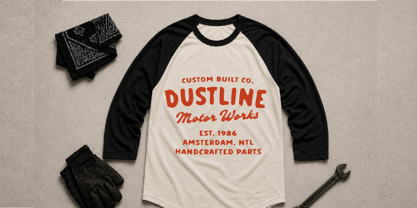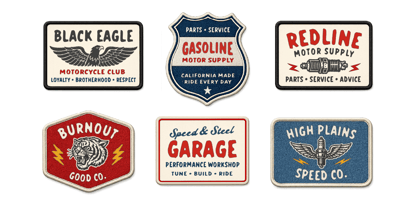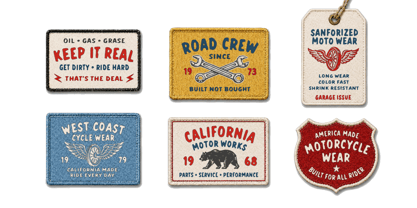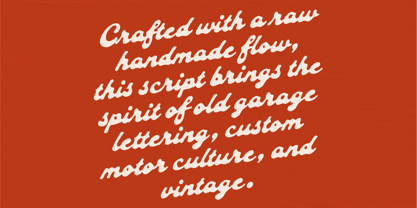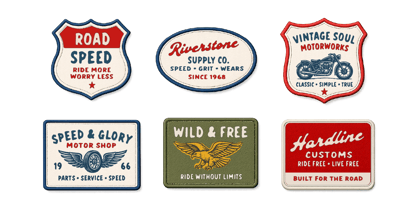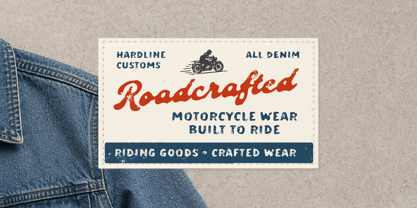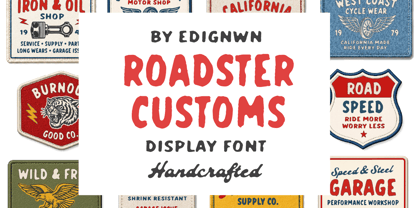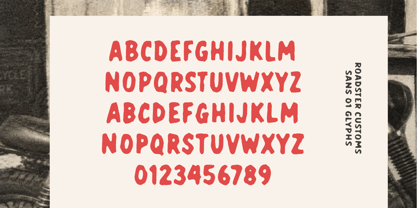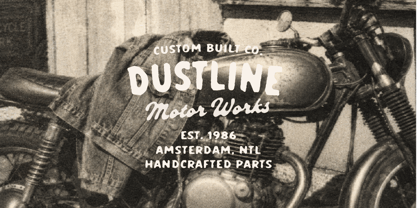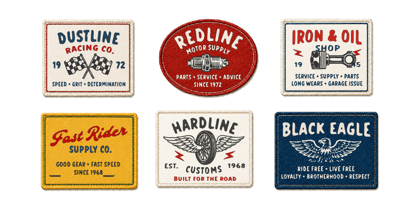
Roadster Customs
by Edignwn Type
The Roadster Customs Font Family was designed by Edi Gunawan and published by Edignwn Type. Roadster Customs contains 6 styles and family package options. More about this family
Roadster Customs is a handcrafted display font built with a raw garage lettering feel. Designed for visual branding designers working on vintage apparel, patch designs, garage identities, motor club graphics, and handcrafted goods, this font brings a bold custom-built spirit to every project.
The script style offers a strong handmade flow with old garage charm, while the two sans styles provide rugged supporting type for badges, labels, posters, logos, packaging, and apparel graphics. With both Regular and Textured styles included, Roadster Customs makes it easy to create clean brand visuals or distressed vintage designs with an authentic motorcycle culture feel.
Roadster Customs includes:
- 3 typefaces (Roadster Customs Script, Roadster Customs Sans 01, and Roadster Customs Sans 02)
- 2 styles for each typeface (Regular & Textured)
- Uppercase, lowercase, numeral, symbol, punctuation, alternate and ligature in Roadster Customs Script
- All-caps, numeral, symbol and punctuation in Roadster Customs Sans 01, and Roadster Customs Sans 02
- Multilingual support
Designers: Edi Gunawan
Foundry: Edignwn Type